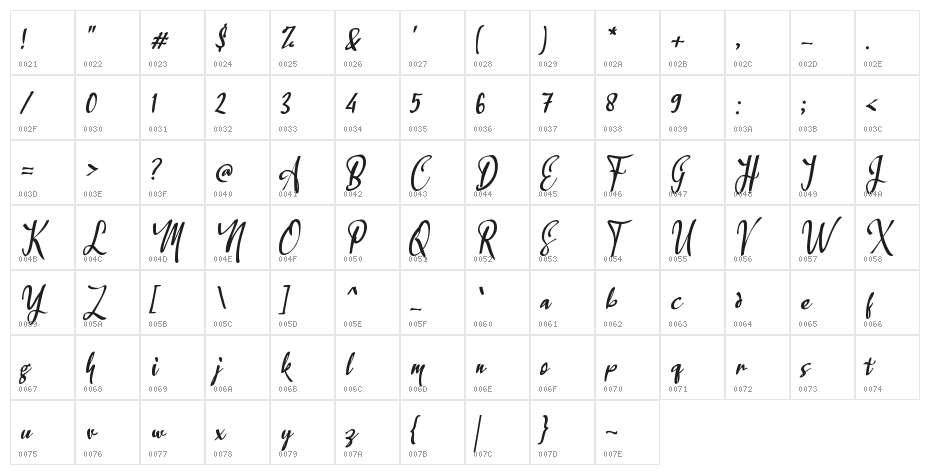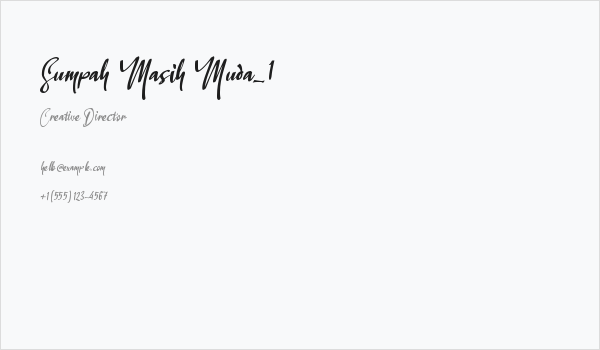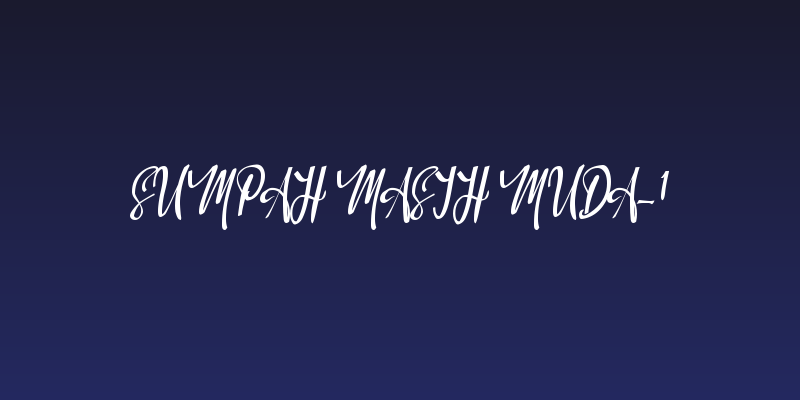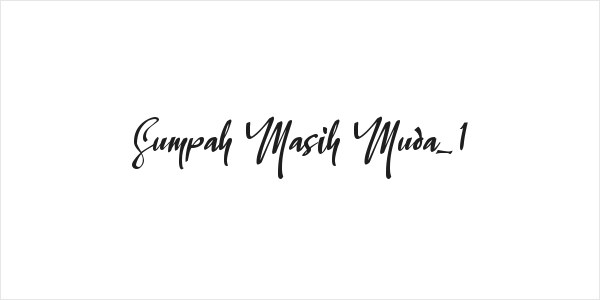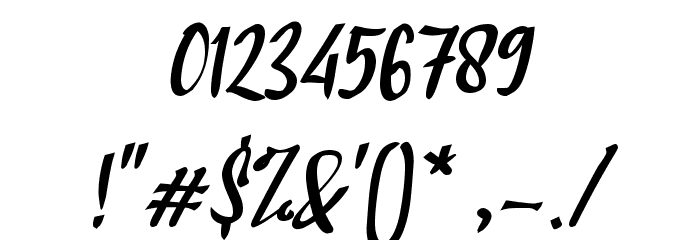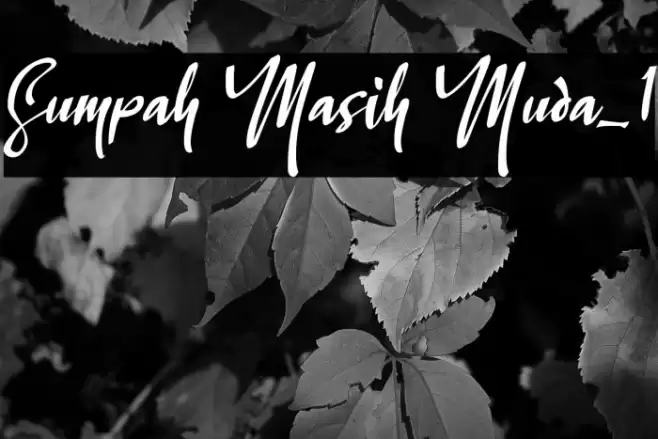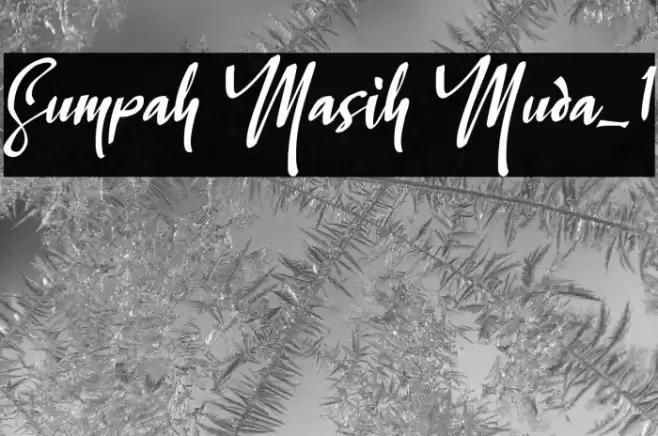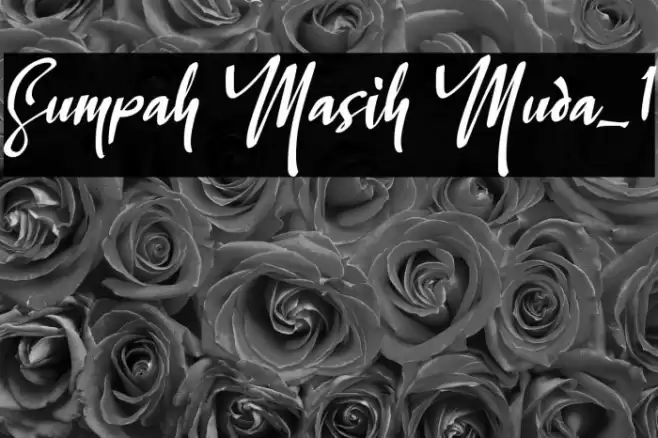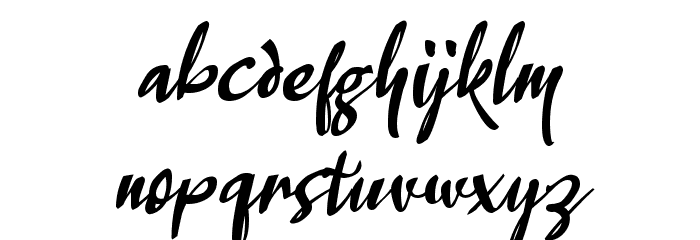
Sumpah Masih Muda_1 Font
Sumpah Masih Muda_1 Description
This font features a dynamic and flowing script style, characterized by its elegant and cursive letterforms. The uppercase letters exhibit a graceful, sweeping motion with varying stroke widths, giving a sense of movement and fluidity. The lowercase letters maintain this fluidity, with smooth connections between characters, enhancing its handwritten appeal. The numerals and special characters are consistent with the overall style, maintaining the same flowing and artistic quality. This font is ideal for projects that require a personal touch, such as invitations, greeting cards, or branding materials where a sense of elegance and sophistication is desired.
| Overall Style | Elegant, Handwritten |
| Use Case | Logos, Invitations, Greeting Cards |
| Proposed Projects | Ideal for invitations, greeting cards, branding materials, and any project requiring an elegant, personal touch. |